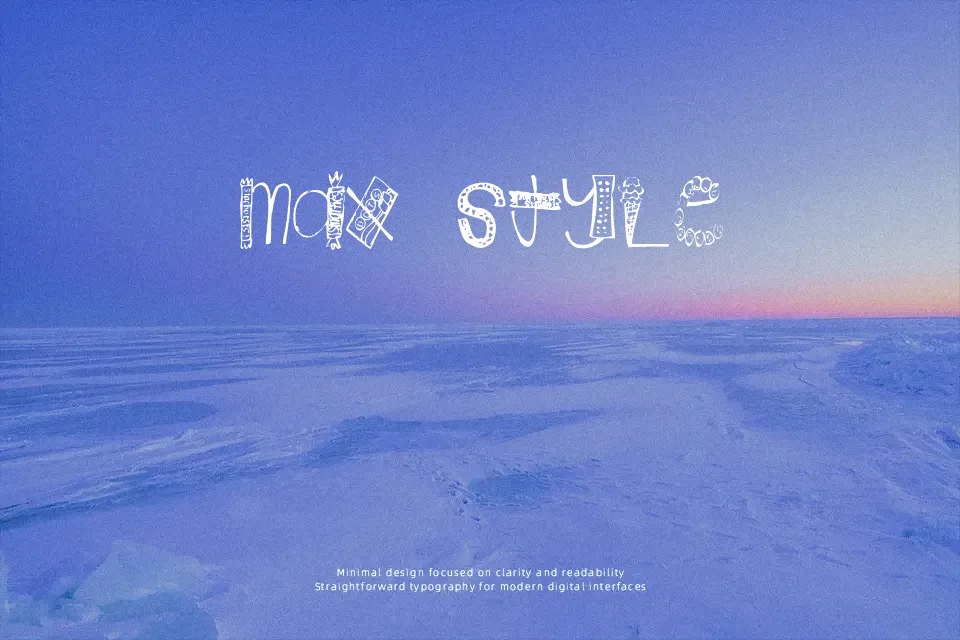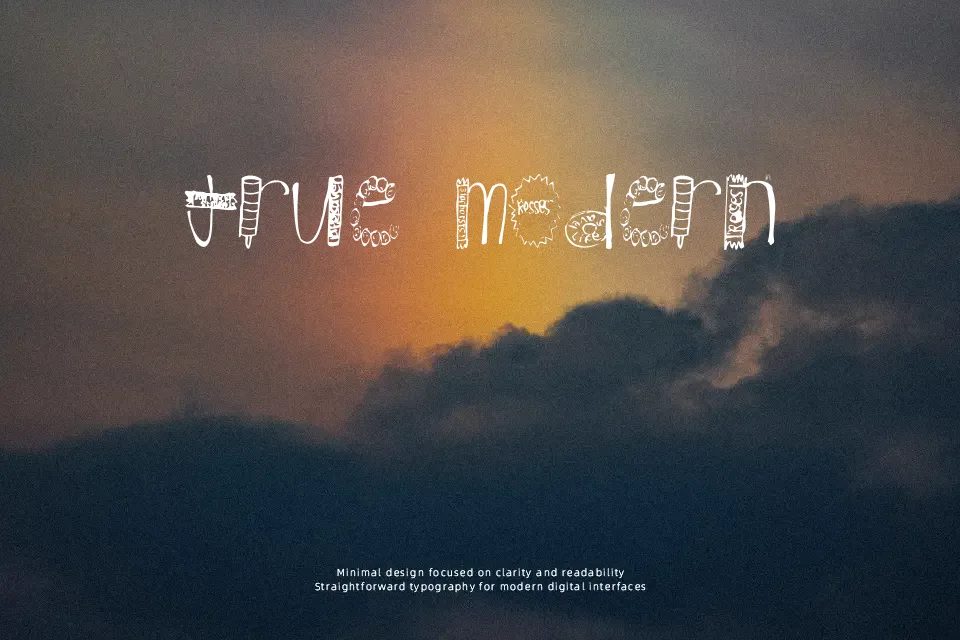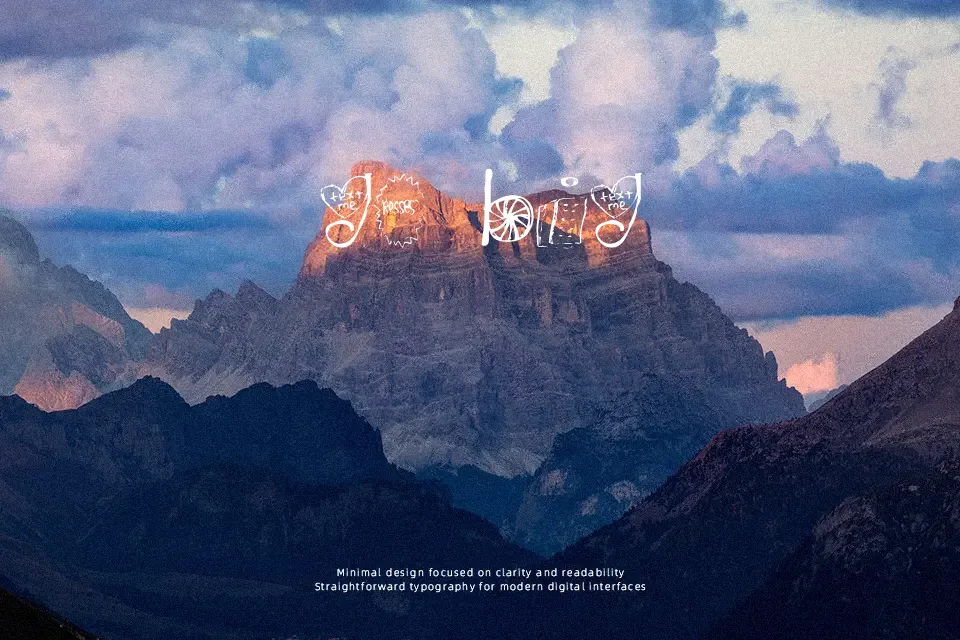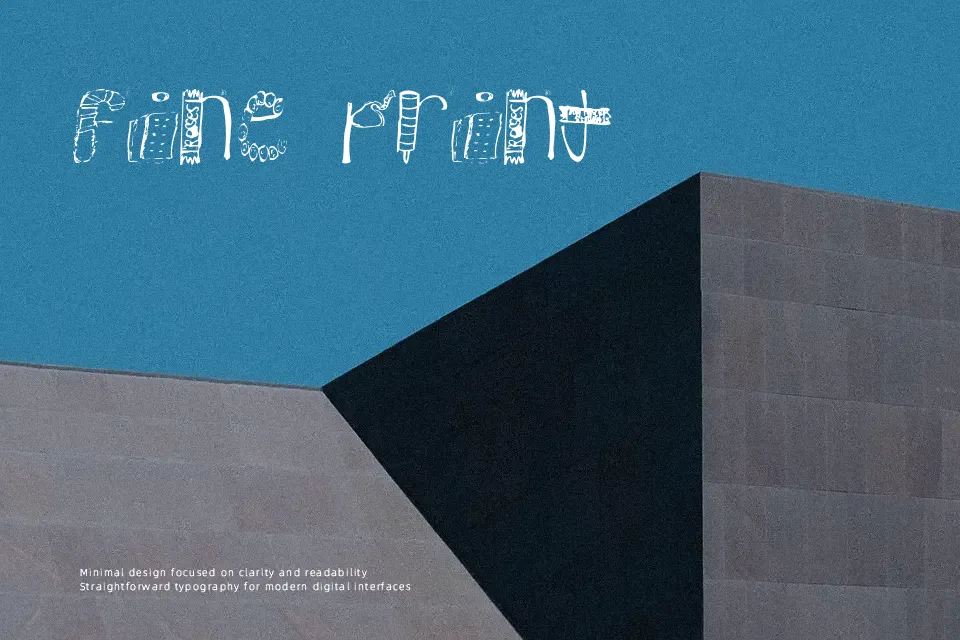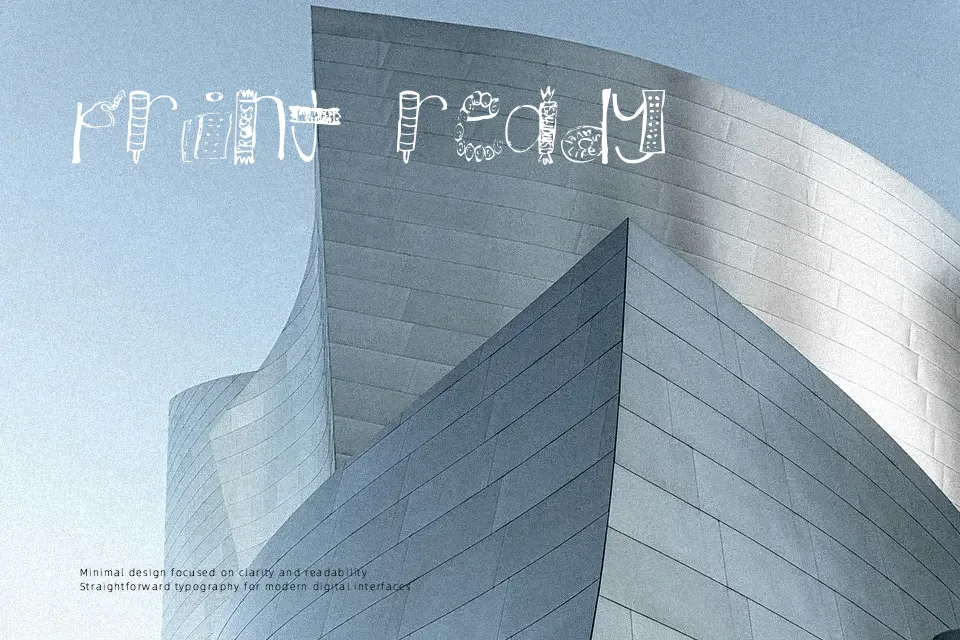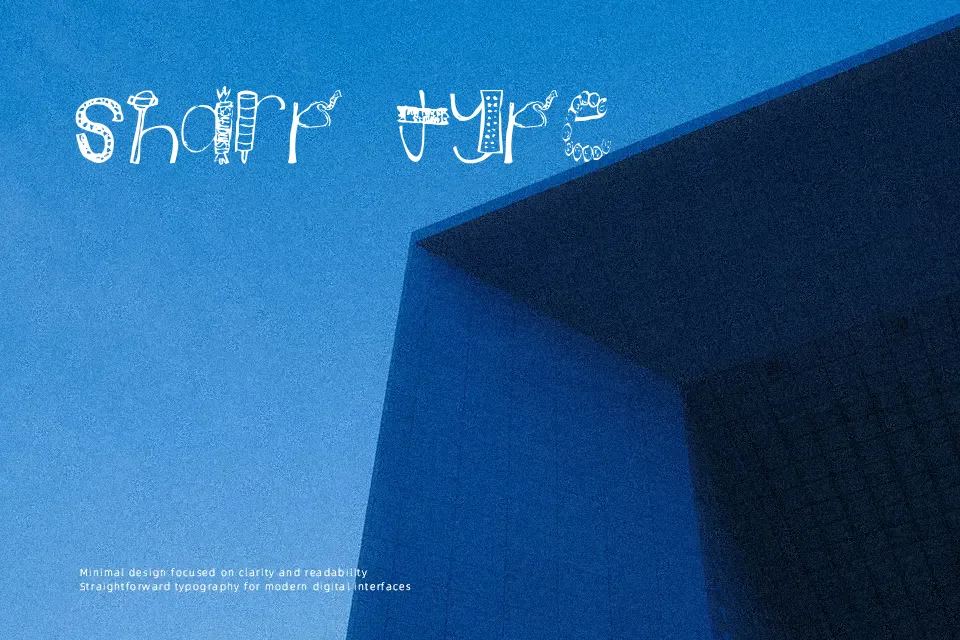
Candy Font
Designed by Kathryn Mootz
Candy Font is a decorative display typeface distinguished by expressive contours, rounded terminals, and lively stroke variations across every character. The design maintains generous letter spacing and balanced proportions that preserve overall silhouette recognition in headline arrangements. These structural traits make the typeface particularly effective for themed event posters, children’s party invitations, and novelty food packaging where energetic visual presence is required. However, the intricate decorative flourishes and heavy stroke weight cause dense body paragraphs and small UI captions to lose clarity rapidly. The letterforms perform best when displayed at larger scales where character outlines remain sharply defined and comfortable to read.
Best For: novelty food packaging,children’s party invitations,themed event posters,creative book titles
Not Ideal For: continuous body text,mobile interface labels,technical documentation,dense editorial paragraphs
Perfect for headline, invitation, and kids, with a creative and decorative style.